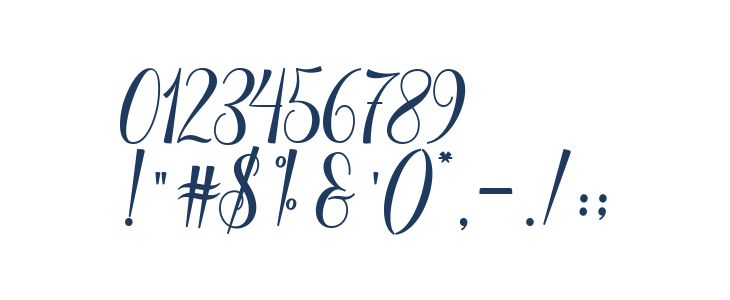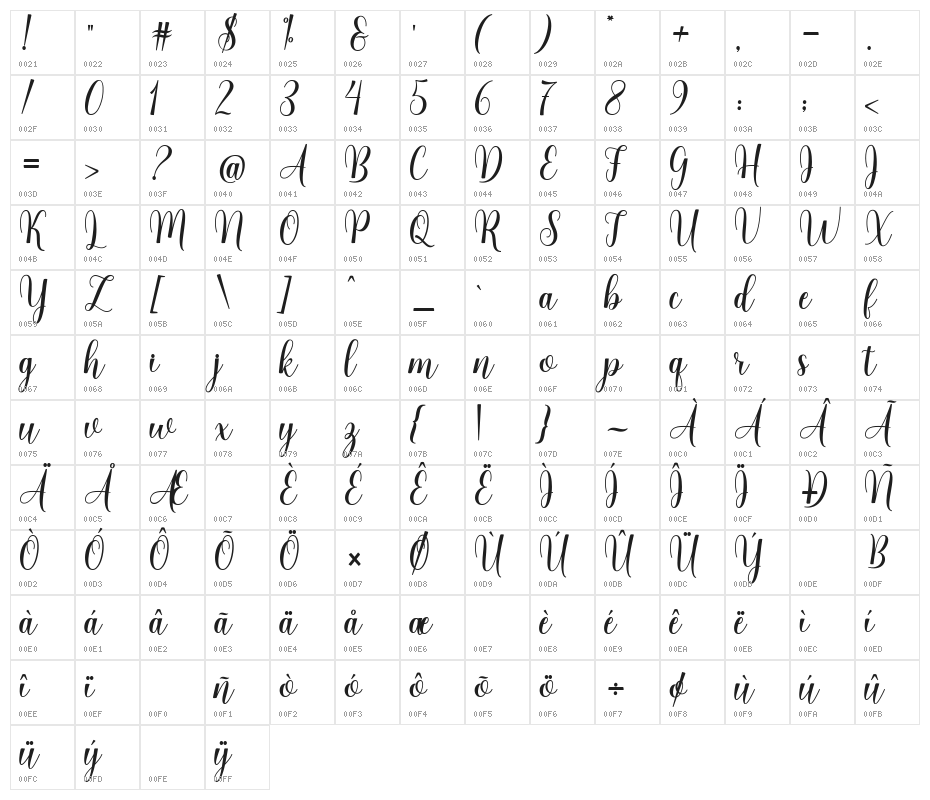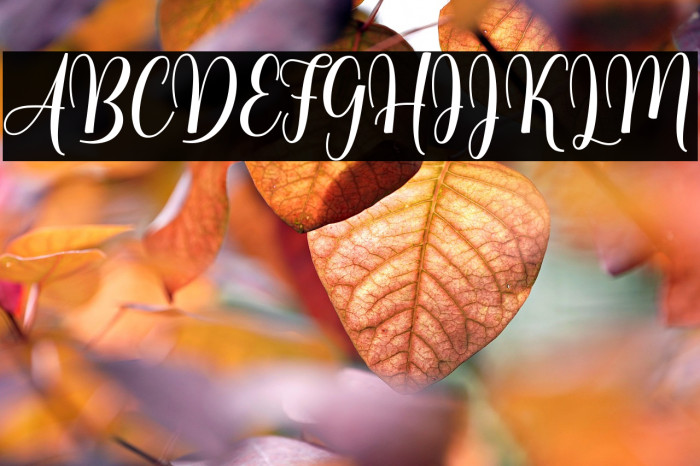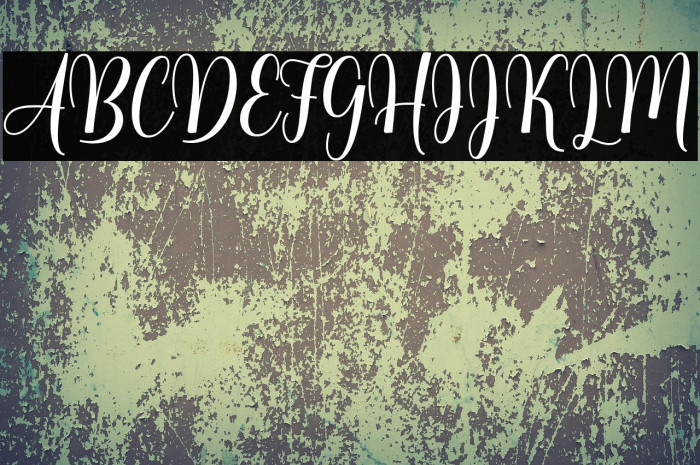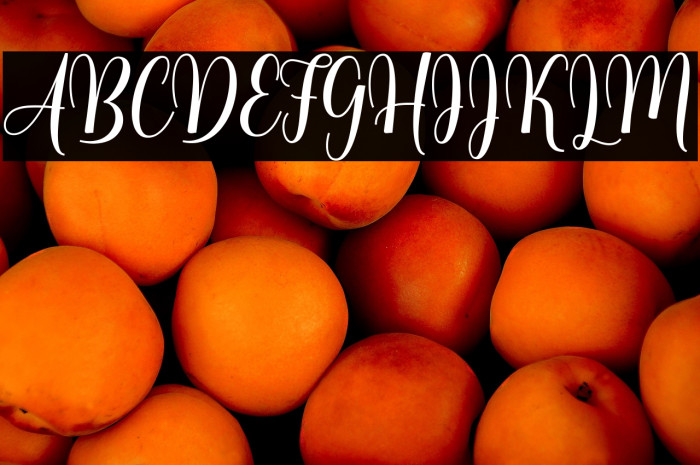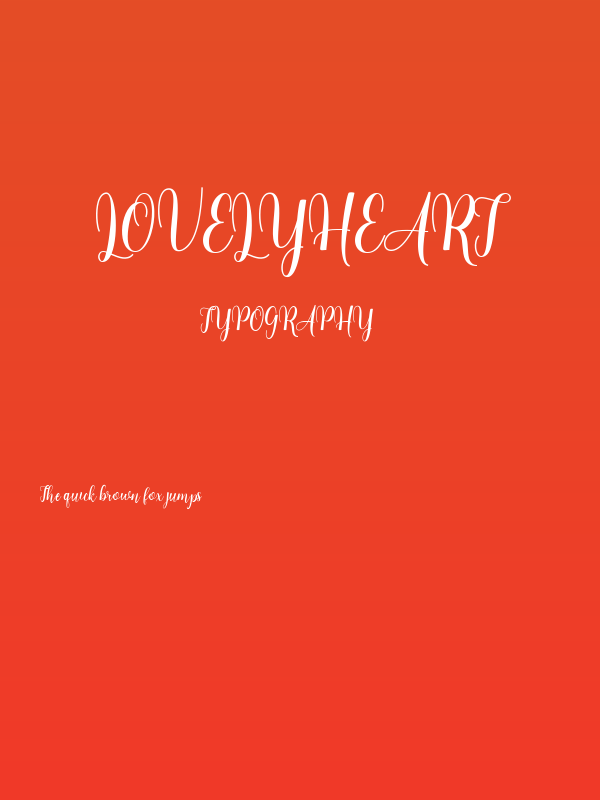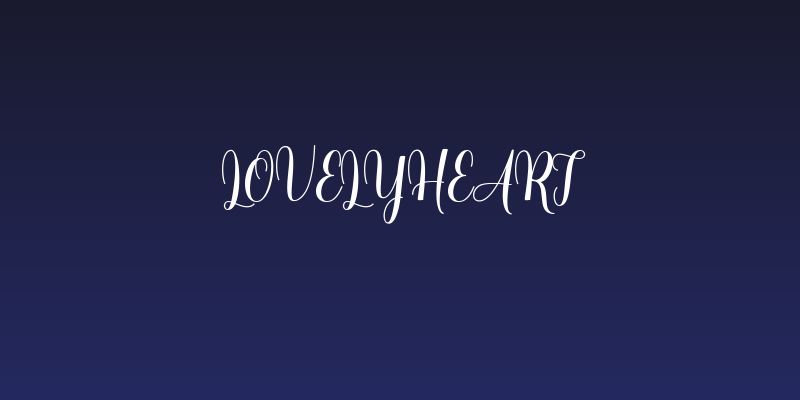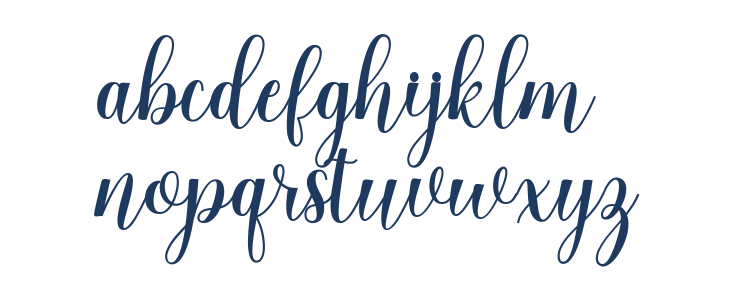
lovelyheart Font
lovelyheart Description
This font features an elegant and flowing script style, characterized by its smooth, cursive letterforms. The uppercase letters exhibit graceful loops and swashes, adding a touch of sophistication and flair. The lowercase letters maintain a consistent flow, with gentle curves and connections that enhance readability while retaining a stylish appearance. The numerals are designed with a similar fluidity, ensuring they complement the overall aesthetic. Special characters are thoughtfully integrated, maintaining the font's cohesive look. This font is ideal for projects that require a personal, handwritten touch, such as invitations, greeting cards, or branding materials.
| Proposed Projects | Ideal for wedding invitations, greeting cards, branding, and personal stationery. |